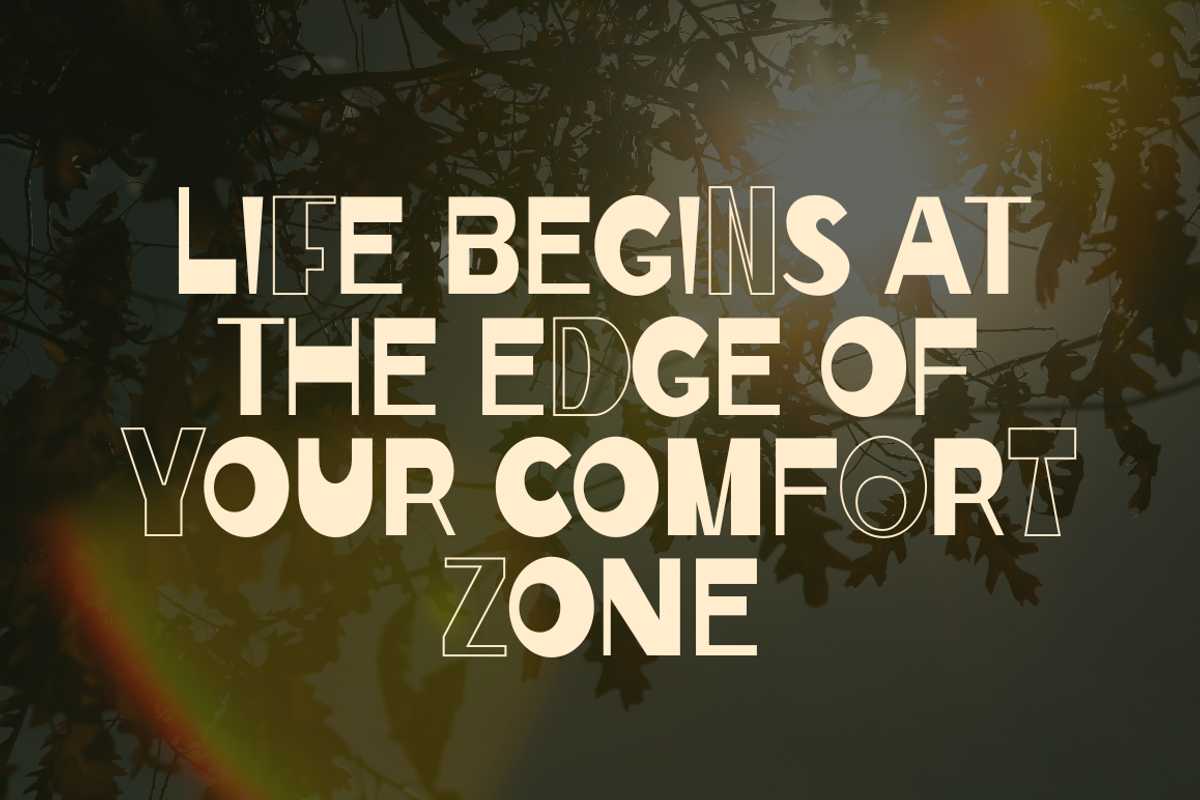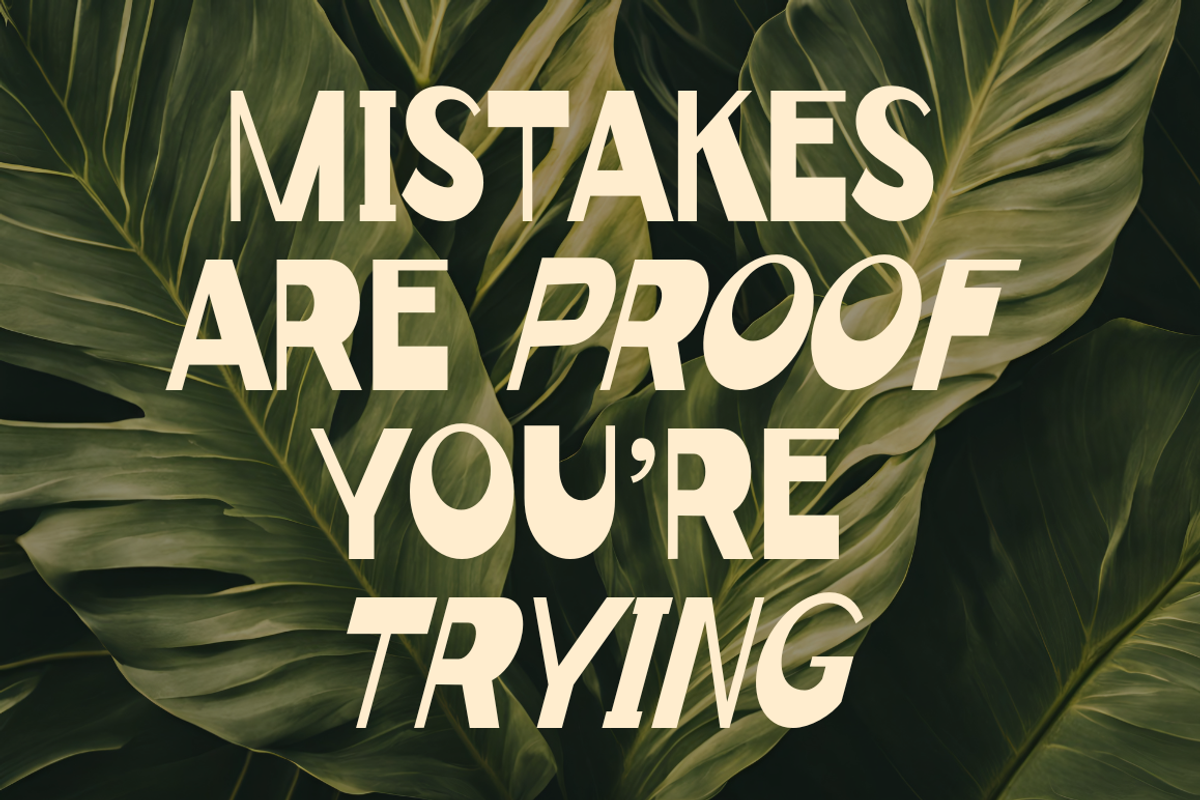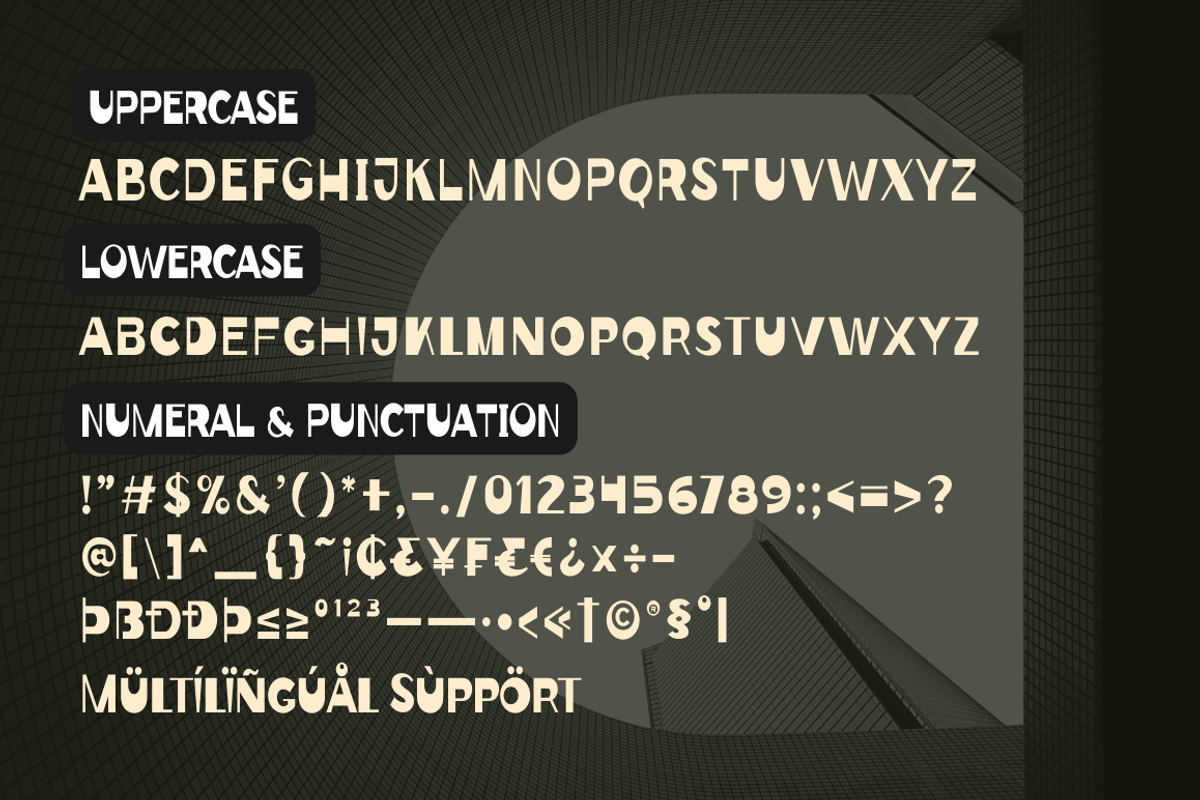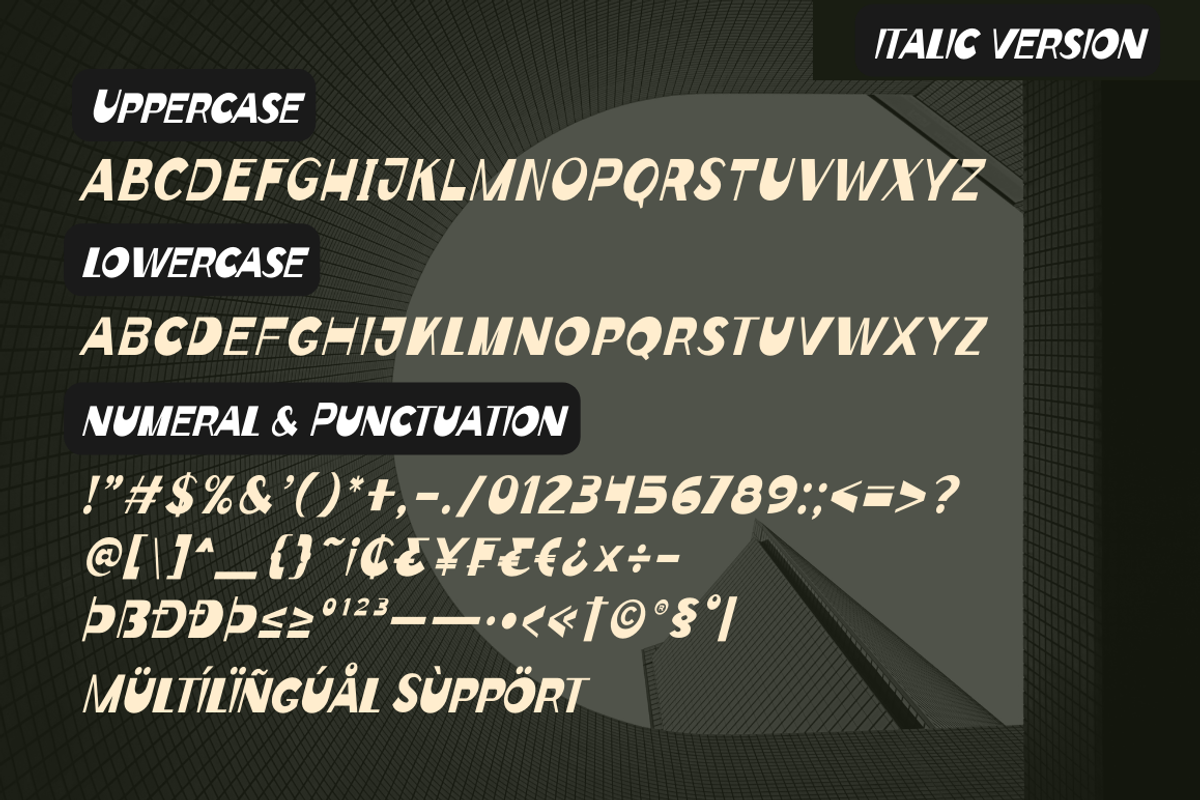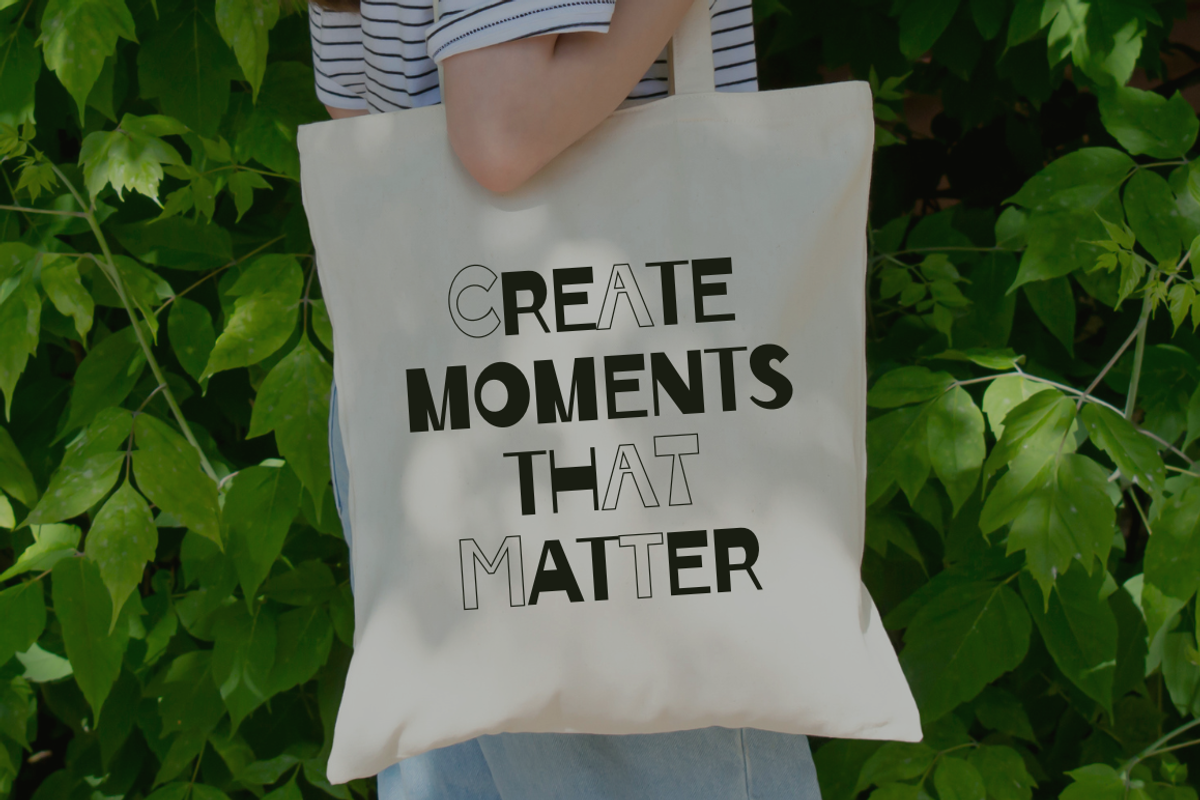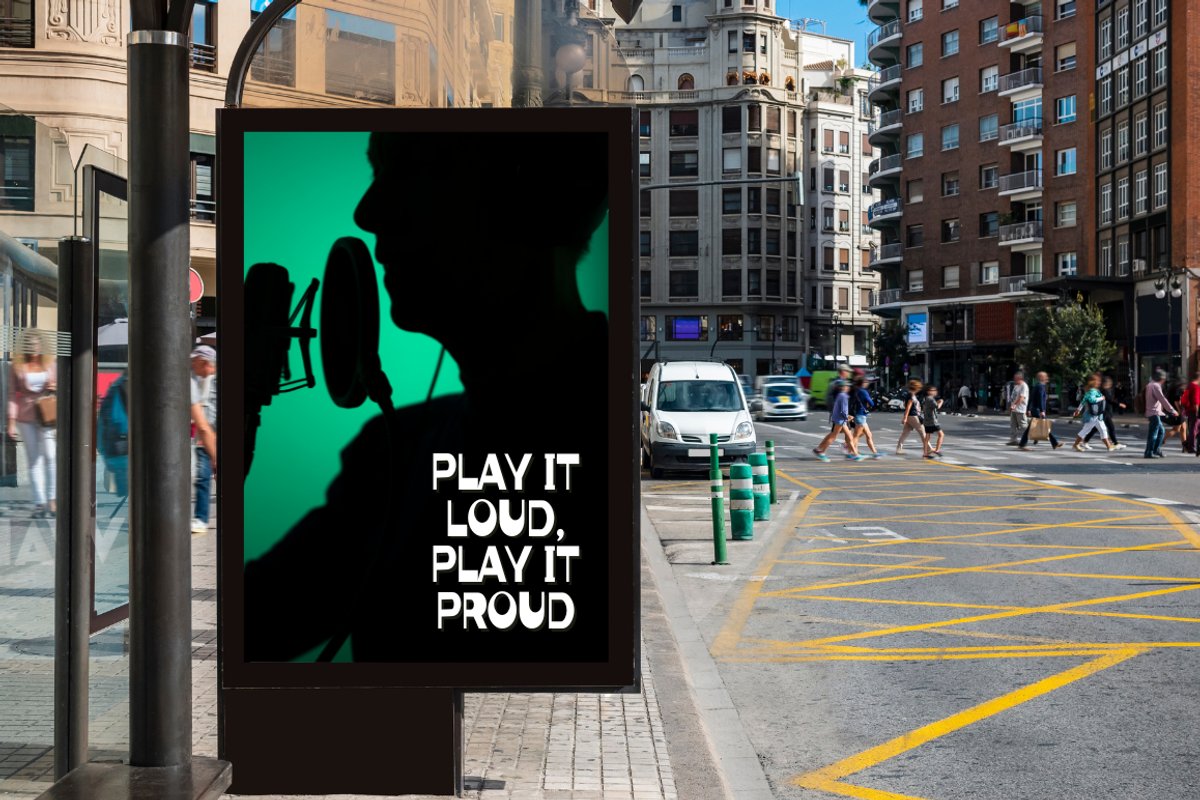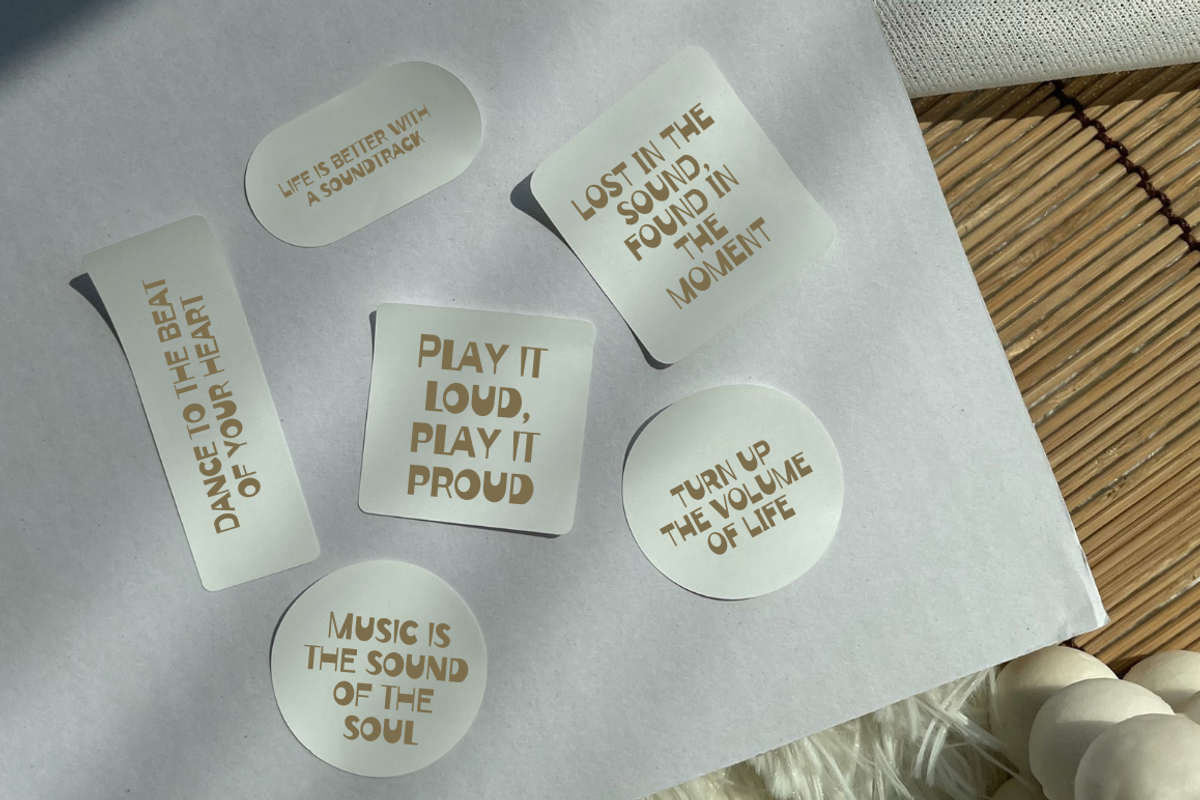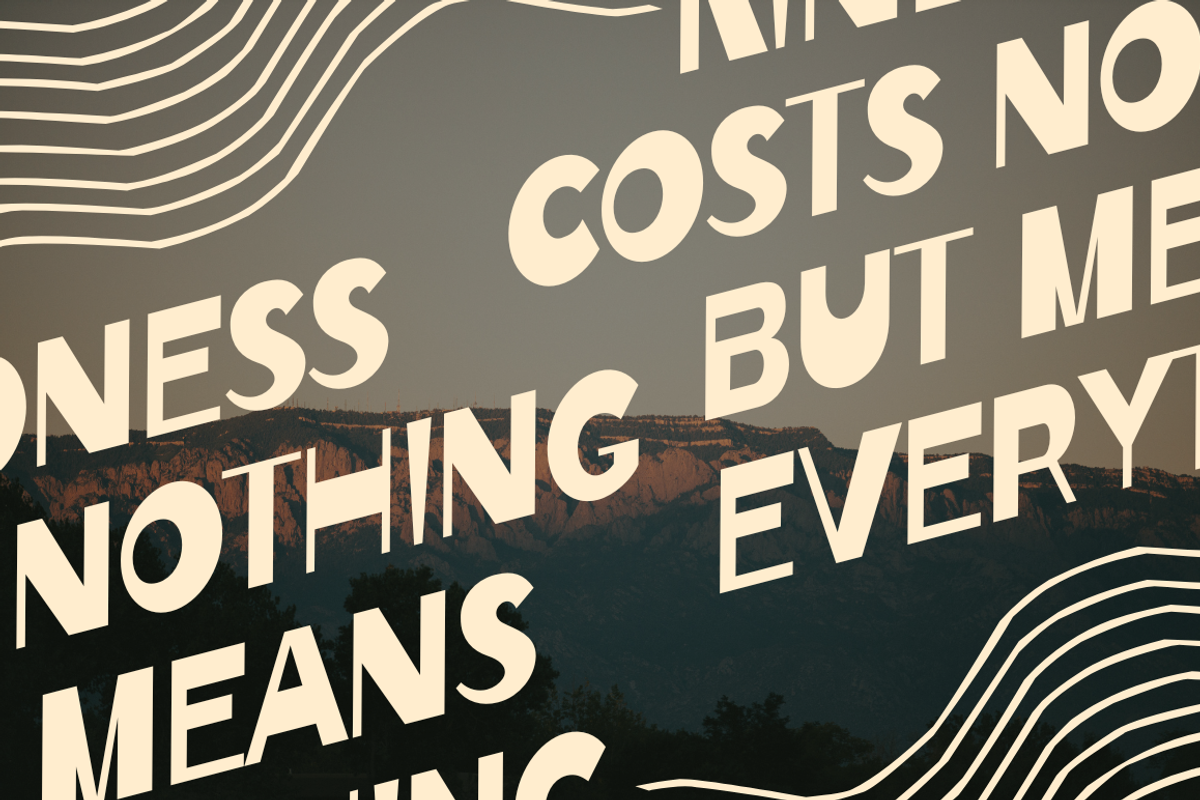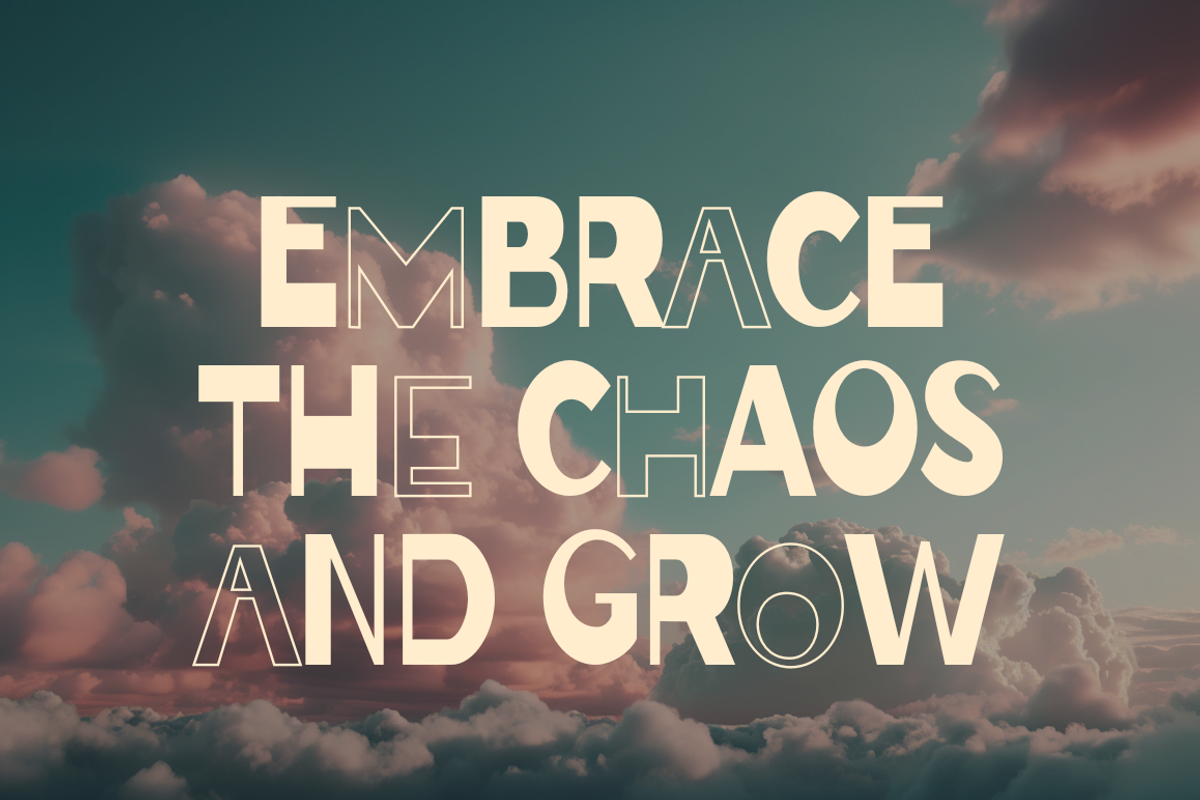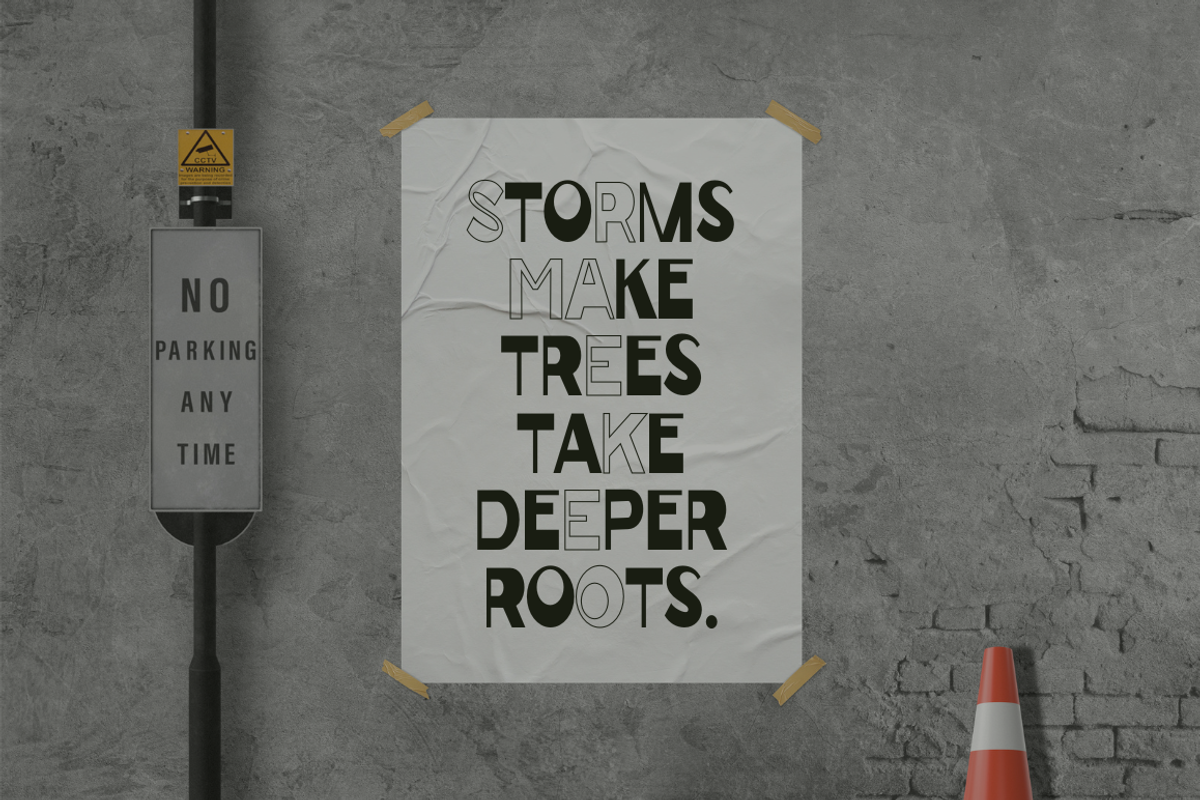
Kopluck Sans - Fun Display Font
Kopluck Sans is a fun and playful display font that brings energy and creativity to your designs. With its quirky and bold letterforms, this font is perfect for crafting eye-catching headlines, posters, packaging, or any project that needs a lively and cheerful touch. Let Kopluck Sans add a dose of charm and personality to your work!
- Regular & Italic styles
- Alternate letters for added versatility
- Numerals & punctuation